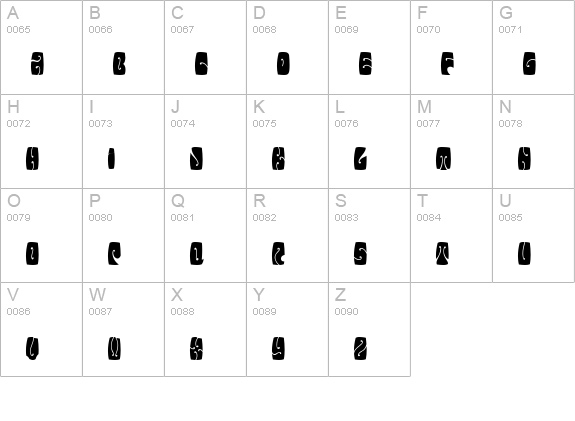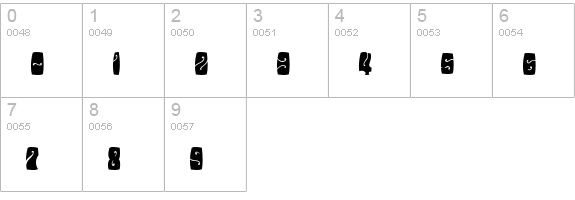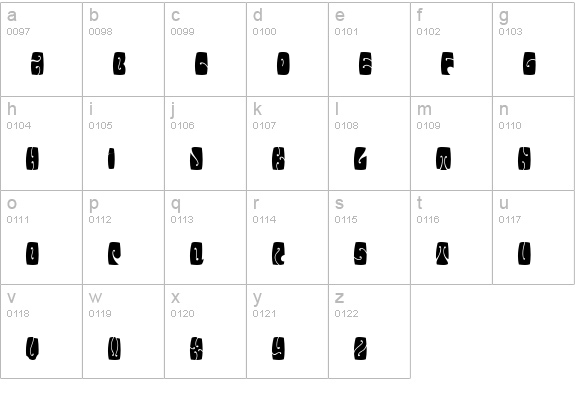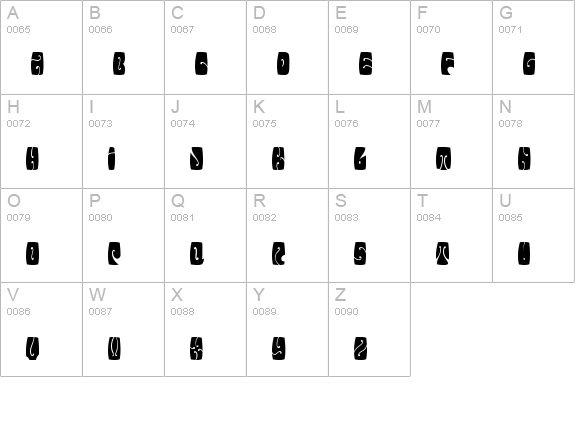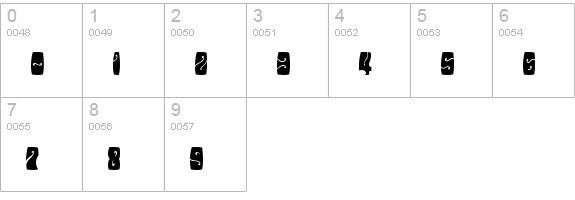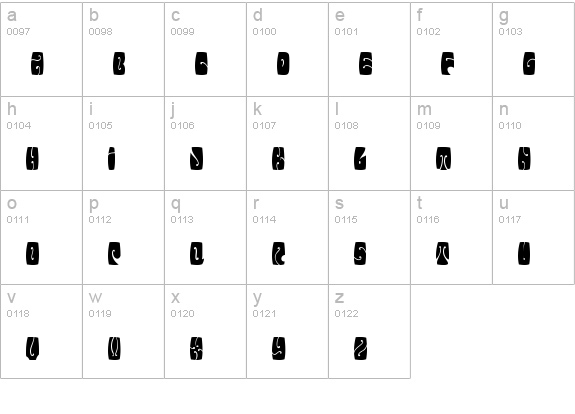
Electorate Boogaloo Font Details
Introducing Electorate Boogaloo font, a dynamic and modern typeface that is perfect for adding a touch of personality to your designs. This versatile font features a unique combination of bold strokes and playful curves, making it ideal for a wide range of projects. Electorate Boogaloo is not just your average font - it exudes a sense of energy and creativity that will make your text stand out from the crowd. Whether you're working on a branding project, poster design, or social media graphics, this font is sure to make a lasting impression. The best part? Electorate Boogaloo is available for free download exclusively at FontsMarket.com. Now you can elevate your designs without breaking the bank. Don't miss out on this opportunity to add a fresh and exciting element to your typographic toolbox with Electorate Boogaloo font.